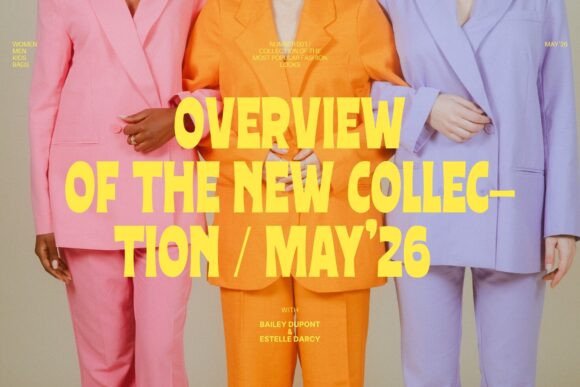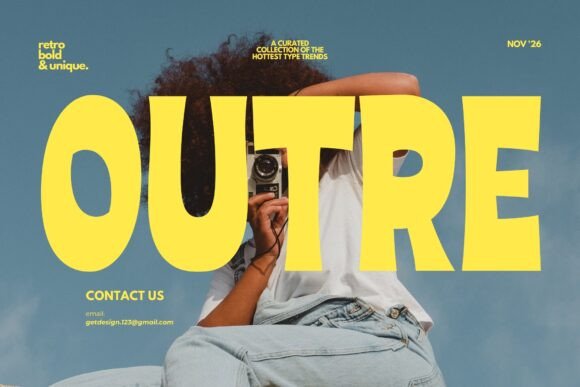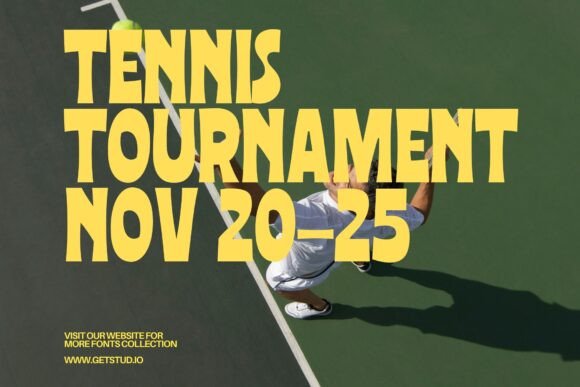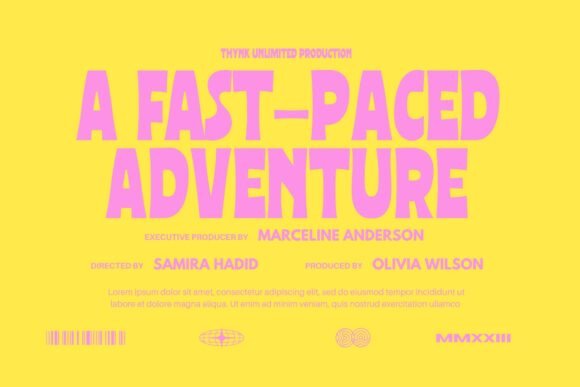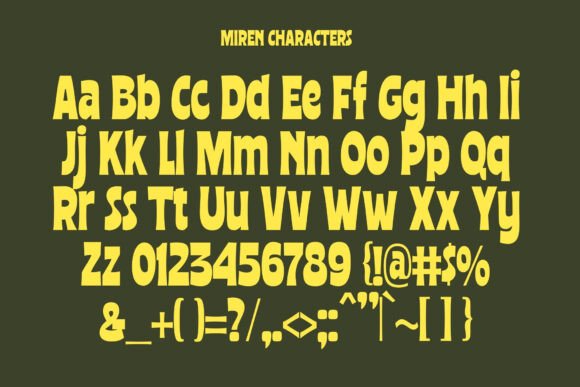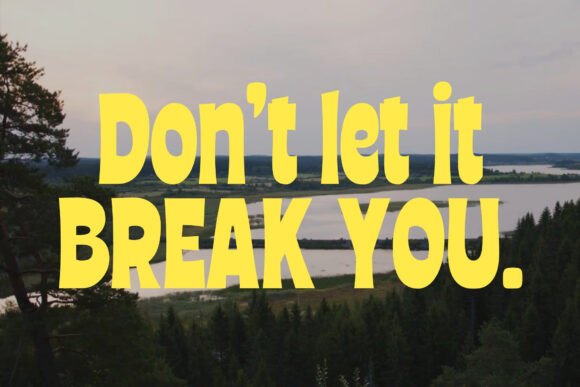
Introduction to Miren Font
Have you ever been working on a creative project, pouring your heart and soul into every detail, only to feel like something’s missing? The perfect font can make all the difference. That’s exactly what happened to me when I stumbled upon the Miren Font. Its bold display style with reverse contrast instantly grabbed my attention and transported me back to the golden age of design.
Miren Font is more than just a font – it’s a design resource that adds a touch of vintage charm to any project. With its striking proportions and unique style, it’s the perfect choice for standout headlines, branding, and designs that demand attention. Whether you’re working on a high-quality design project or just need a reliable font for your next creative endeavor, Miren Font is a valuable asset that’s sure to elevate your work.
Key Features of Miren Font
- High-quality design resource ideal for creative projects, including logos, graphics, and branding materials.
- Designed to be highly legible, with clear and crisp typography suitable for a wide range of design applications.
Honest Review: Miren Font
I recently had the chance to work with the Miren Font, and I must say it’s been a delightful addition to my design resources. This high-quality font is perfect for any creative project that requires a unique touch.
- ✨ Elegant and modern design aesthetic
- ✨ Wide range of font styles and weights
- ⚠️ Some users may find the font too bold or overpowering for certain designs
Overall, I’m thoroughly impressed with the Miren Font. Its versatility and high quality make it an excellent addition to any design resource library. Whether you’re working on a creative project or just need a reliable font for everyday use, the Miren Font is definitely worth checking out.
Miren Font
Tips for Getting the Most Out of Miren Font
To get the most out of the Miren Font, use it in combination with other design resources, such as images and graphics. Experiment with different font sizes, colors, and styles to create unique and visually appealing designs. The Miren Font is a versatile design resource that can be used in a variety of creative projects.
The Miren Font is commonly used in graphic design, digital art, and typography projects. It is ideal for creating visually appealing graphics, logos, and branding materials with a transparent background. The Miren Font is a free download that can be used in a variety of creative projects.